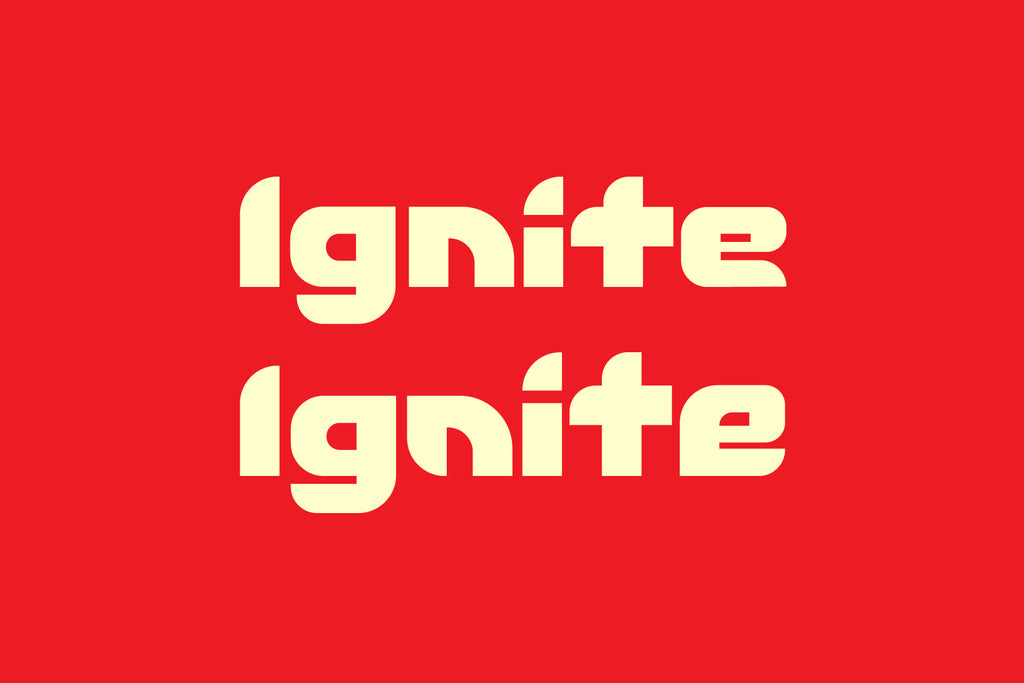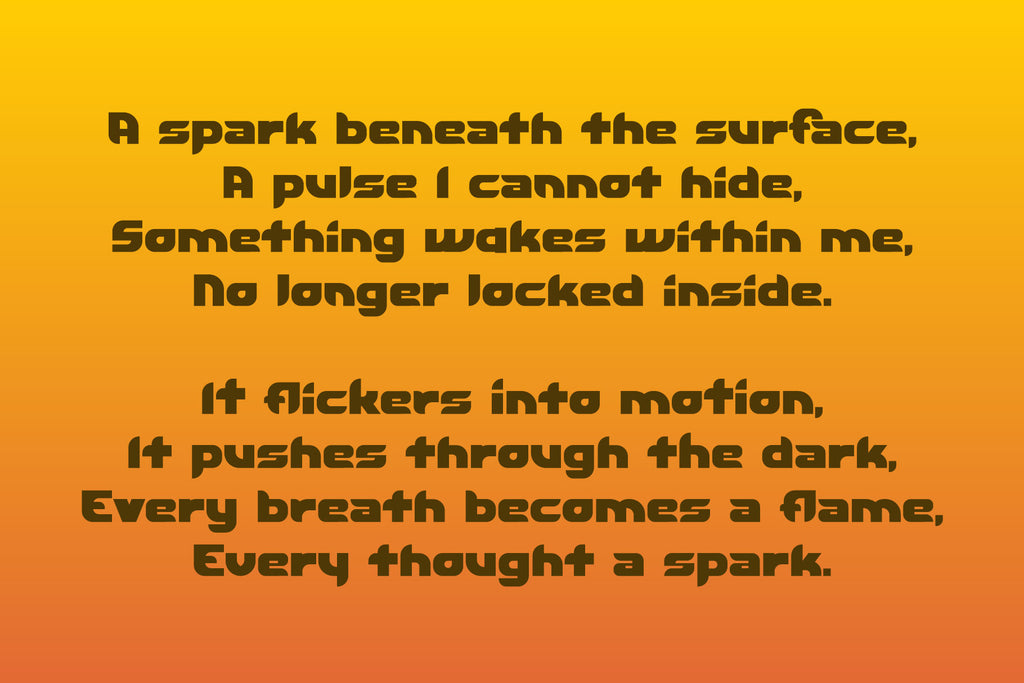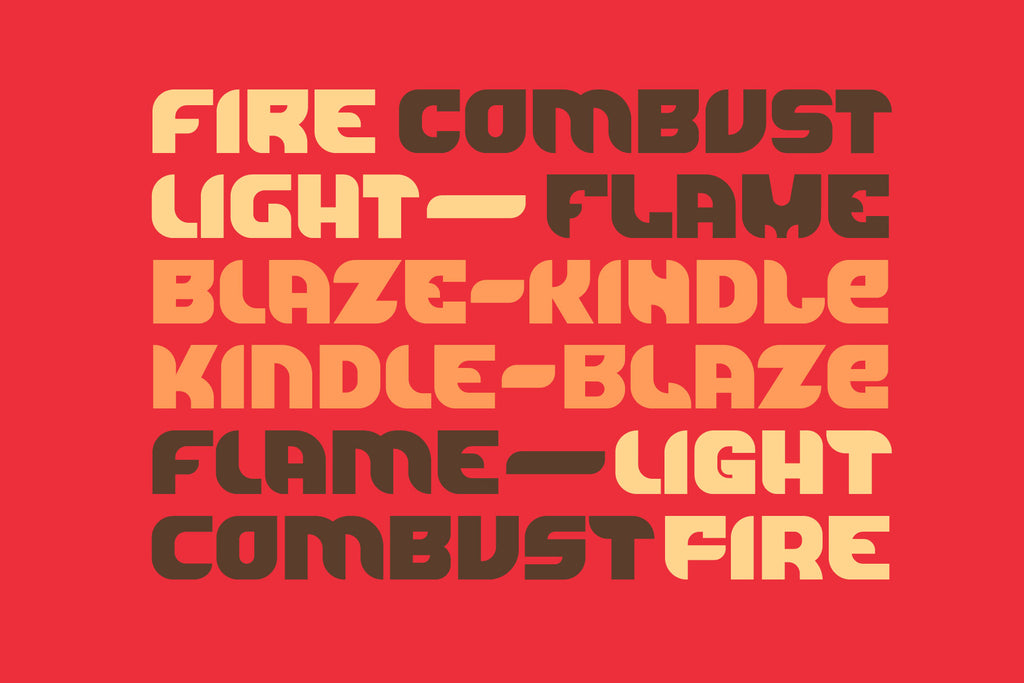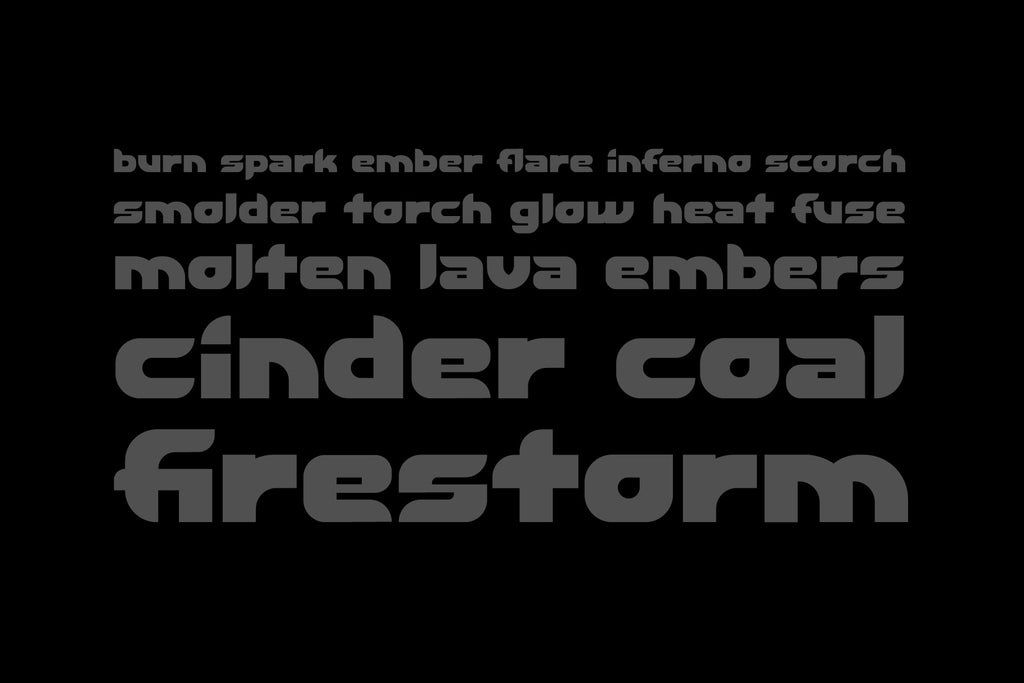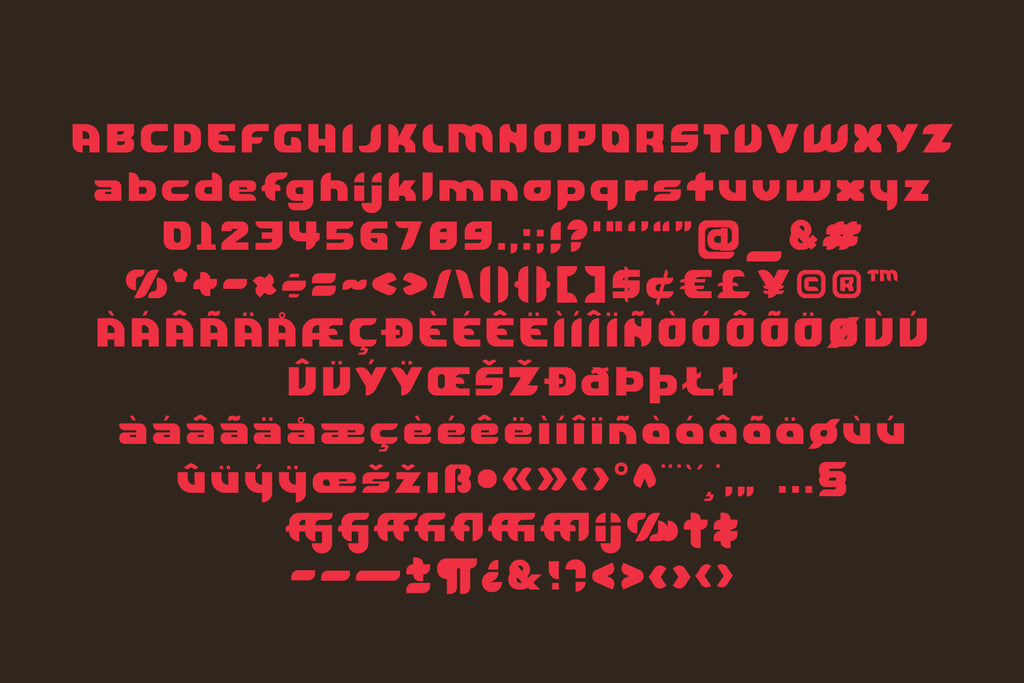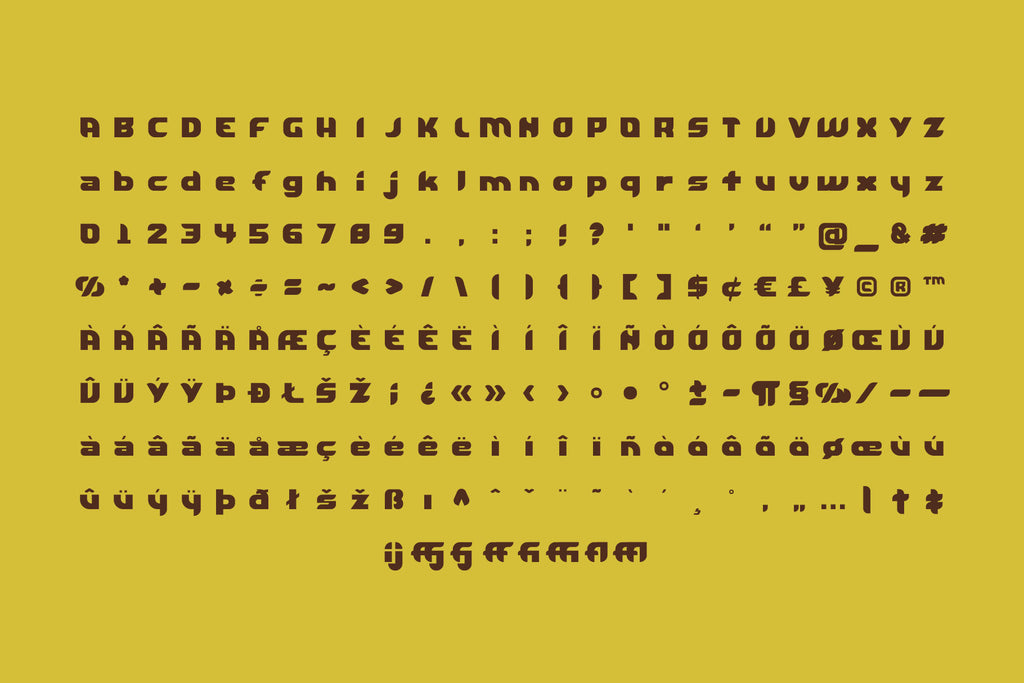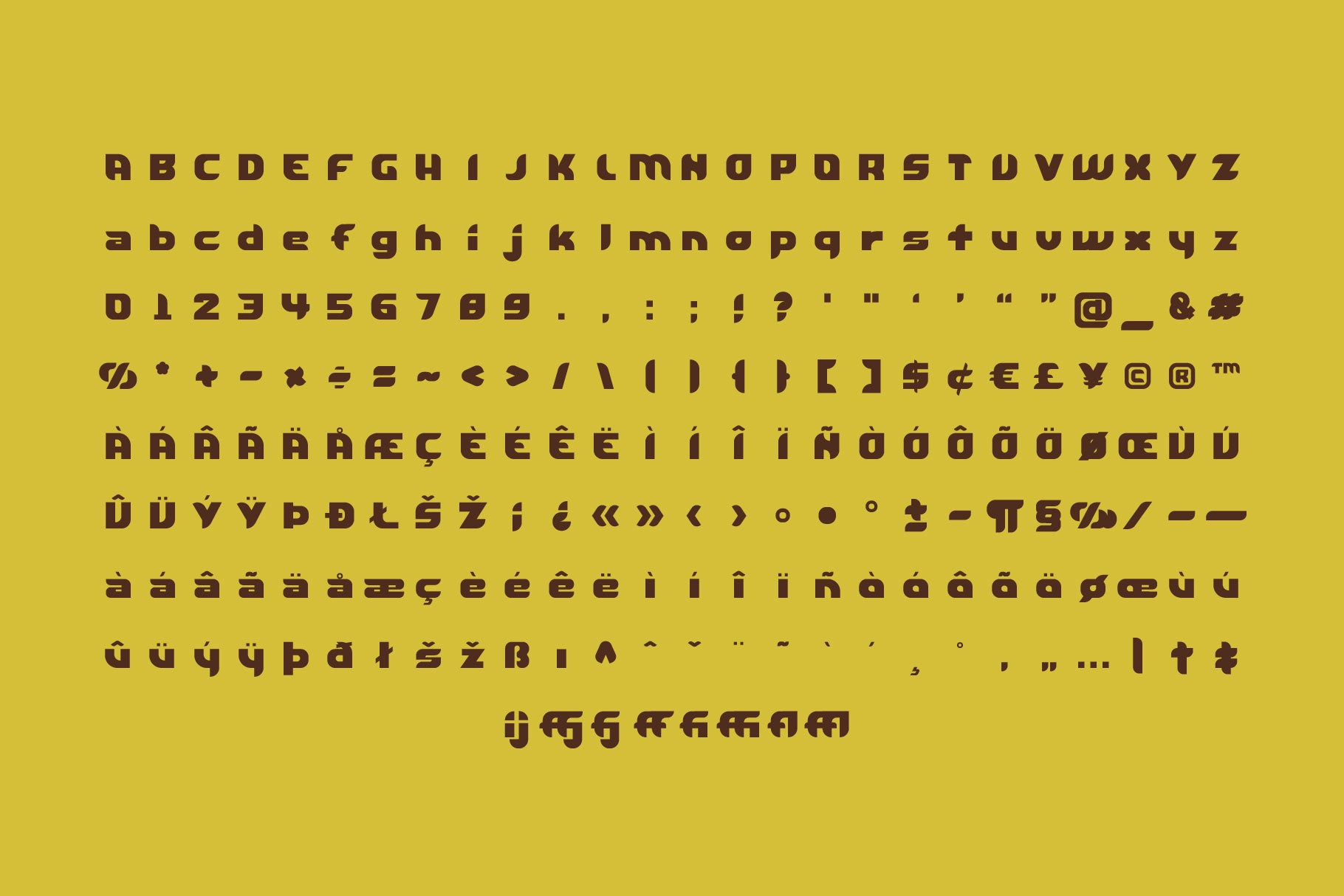
Ignite Typeface
Ignite is a high-energy display typeface designed to hit hard and read loud. Its chunky, modular letterforms balance rounded geometry with sharp mechanical cuts, creating a distinctly retro-futuristic voice that feels both vintage and forward-looking.
Built for statement typography, Ignite excels in posters, branding, merch, album art, headlines, and editorial layouts where personality matters. The typeface includes 216 glyphs with extensive multilingual support, punctuation, symbols, and currency characters—making it as functional as it is expressive.
Ignite is not subtle. It’s designed to burn bright.